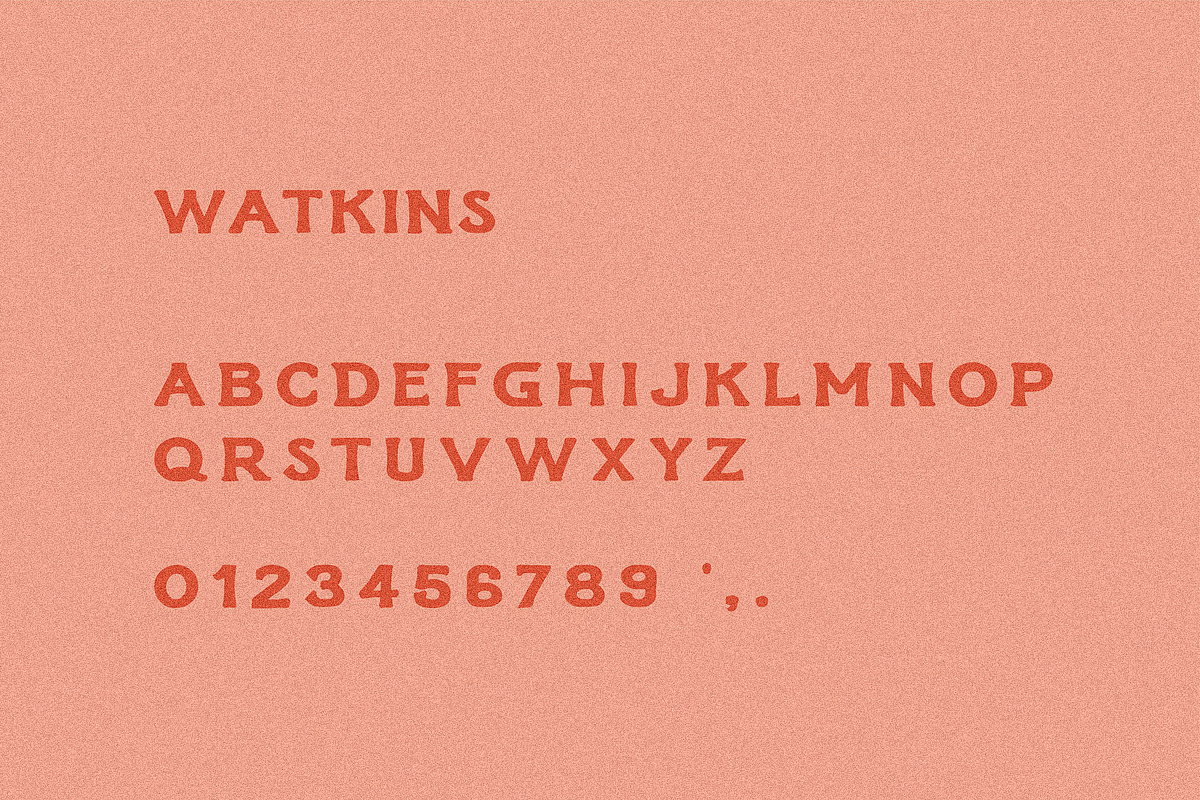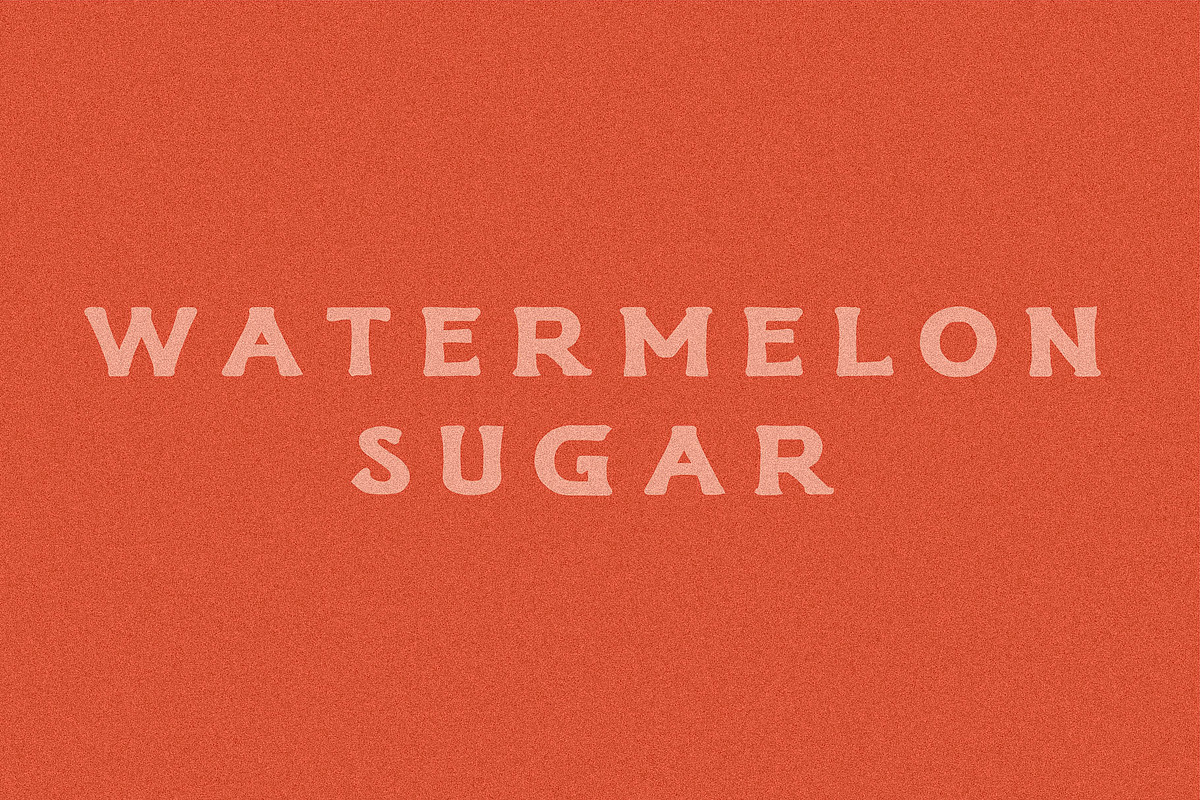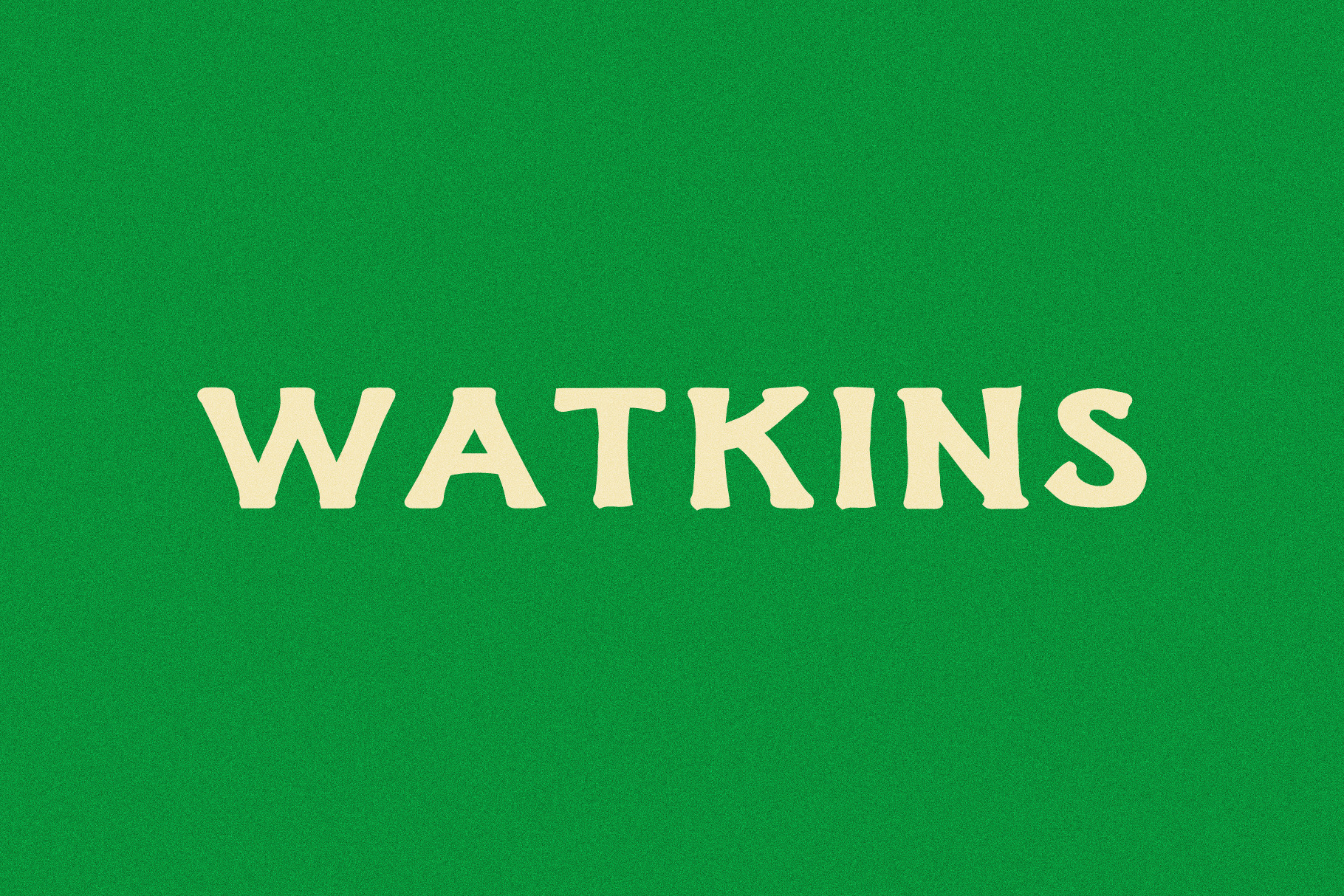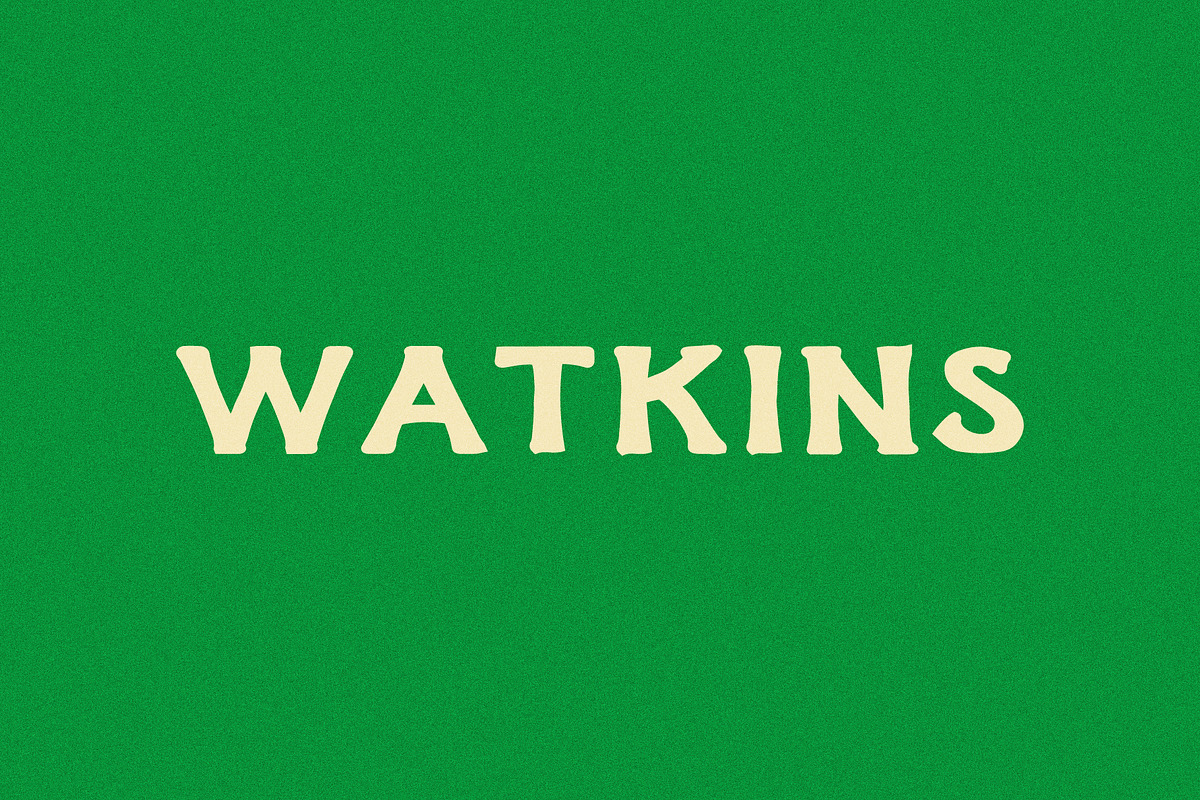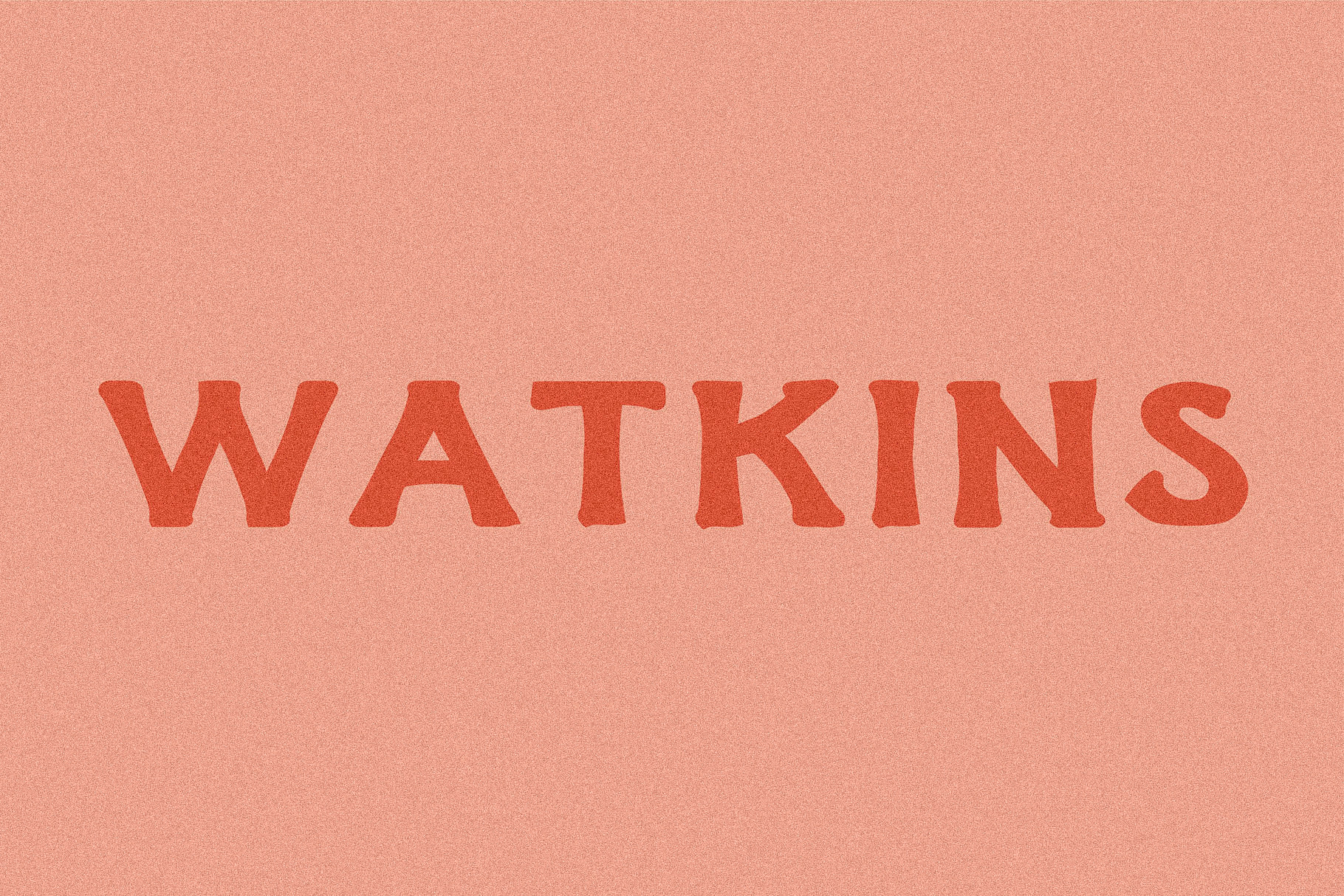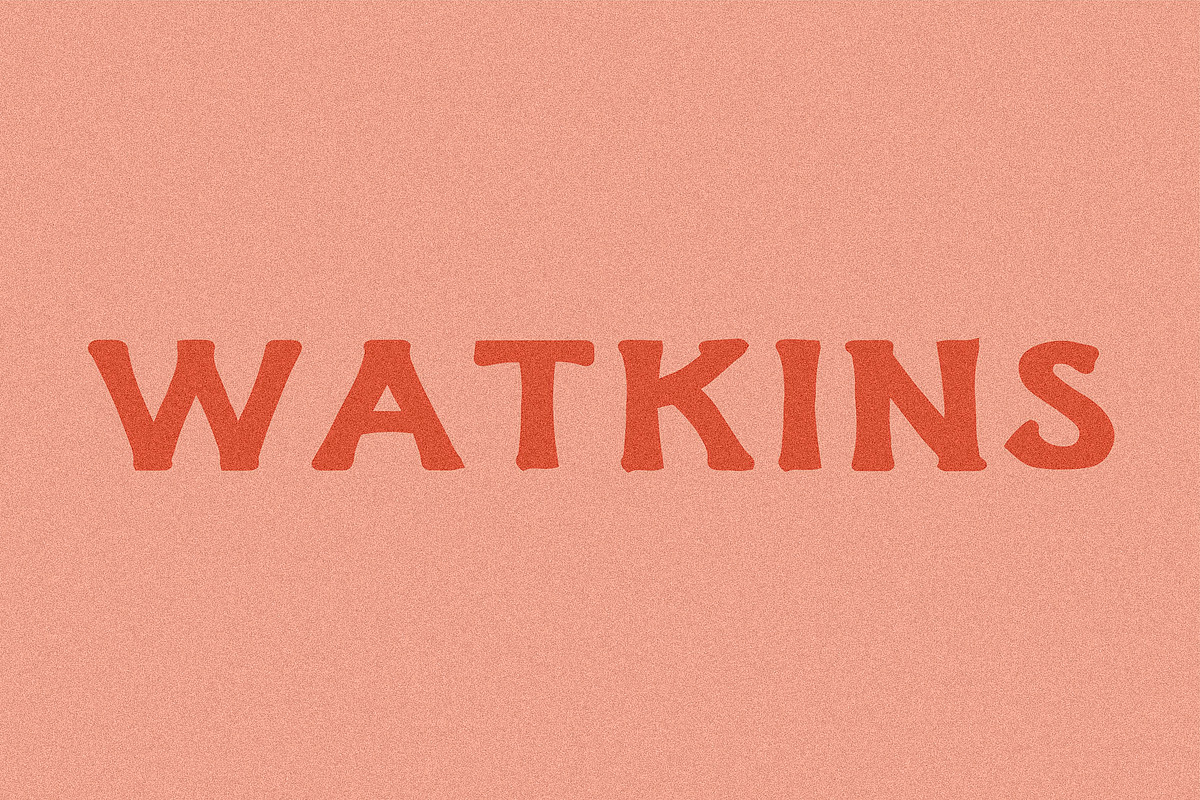
Watkins I A Handmade Display Font
A typeface that plays nice with tradition — but still does its own thing.
It’s bold, clean, and rooted in traditional forms, but with enough softness to feel modern. If you need a typeface that looks reliable (even when your design brief isn’t), Watkins is probably it.